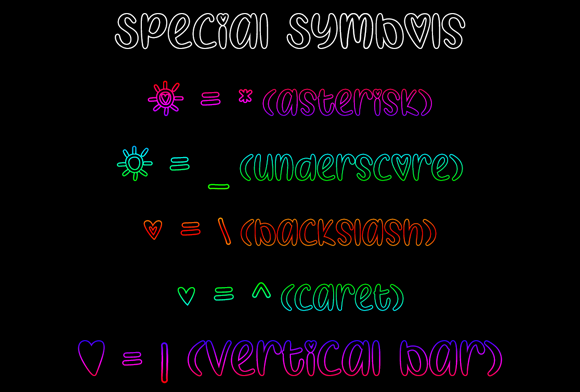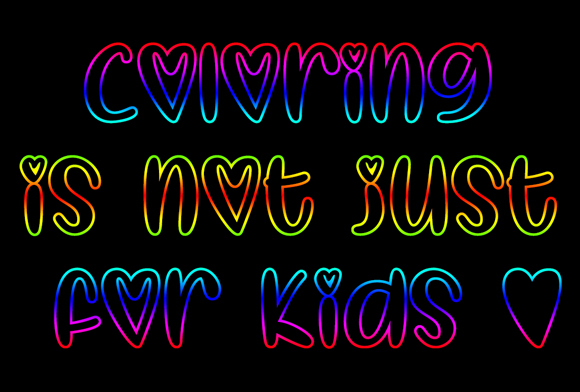
Unleash Your Creativity with I Heart Coloring Font
Do you remember the feeling of excitement and freedom that comes with grabbing a set of crayons and a coloring book? As a child, it was a time for imagination and self-expression, and for many of us, it’s a nostalgic memory that we cherish to this day. But, why should we leave that sense of wonder behind? With the I Heart Coloring Font, you can recapture that feeling and bring it into your adult life, whether you’re a designer, artist, or simply someone who loves to create.
This fun, outline font is specifically designed for coloring books and other projects that require a playful touch. Its unique set of symbols, including hearts, suns, and more, makes it a valuable tool for designers who want to add a touch of whimsy to their work. By incorporating the I Heart Coloring Font into your projects, you can add a personal and creative touch that will set your designs apart from the rest.
- Unique Characteristics: The I Heart Coloring Font features a unique, hand-drawn design with intricate details and playful flourishes, making it perfect for artistic and creative projects.
- Coloring Pages: The font includes a set of pre-designed coloring pages with intricate designs, providing users with a fun and engaging way to express their creativity.
I Heart Coloring Font Review
Overall, I’m quite pleased with the I Heart Coloring Font. It’s a delightful addition to any coloring book or design project. ✨ The font is playful, charming, and has a nice mix of whimsy and elegance.
- Unique and quirky design that’s perfect for coloring books or kids’ projects.
- Variety of styles and sizes to choose from, making it versatile for different applications.
- Easy to read and print, even at smaller sizes.
One thing I appreciate is the font’s consistency across different sizes and styles. It’s clear that the designer put thought into making it work well in various contexts.
- Not ideal for formal or professional projects where a more traditional font is required.
- May not be suitable for text-heavy projects where readability is a top priority.
- Some characters, like punctuation and special symbols, may not be as detailed or visually appealing as others.
Overall, I think the I Heart Coloring Font is a great choice for designers and artists looking for a fun and playful font. While it may not be suitable for every project, it’s definitely a valuable addition to any design toolkit.
Tips: Use I Heart Coloring Font for social media graphics, invitations, and other design elements that require a playful touch.
Tips: Use I Heart Coloring Font for vector graphics, logos, and other design elements that require a unique touch.
Tips: Use I Heart Coloring Font for presentations, reports, and other documents that require a creative touch.
I Heart Coloring Font is perfect for:
- Social media graphics
- Invitations and party decorations
- Vector graphics and illustrations
Tips: Experiment with different font sizes, colors, and styles to get the most out of I Heart Coloring Font.